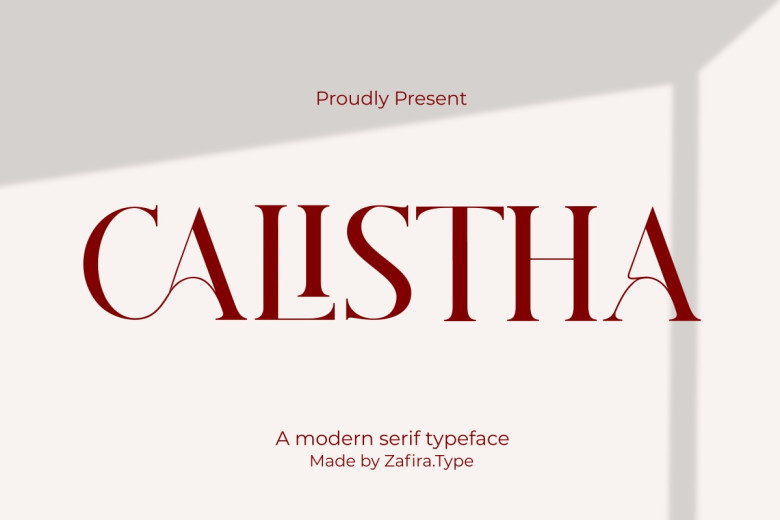
Calistha Serif Font
Calistha It is an elegant, stunning soft serif font designed with beautiful and romantic aesthetics that’s ideal for poster designs, wedding invites, logotypes, product branding and much more! Plus it is PUA encoded so that you’ll have quick access to its incredible symbols and ligatures!